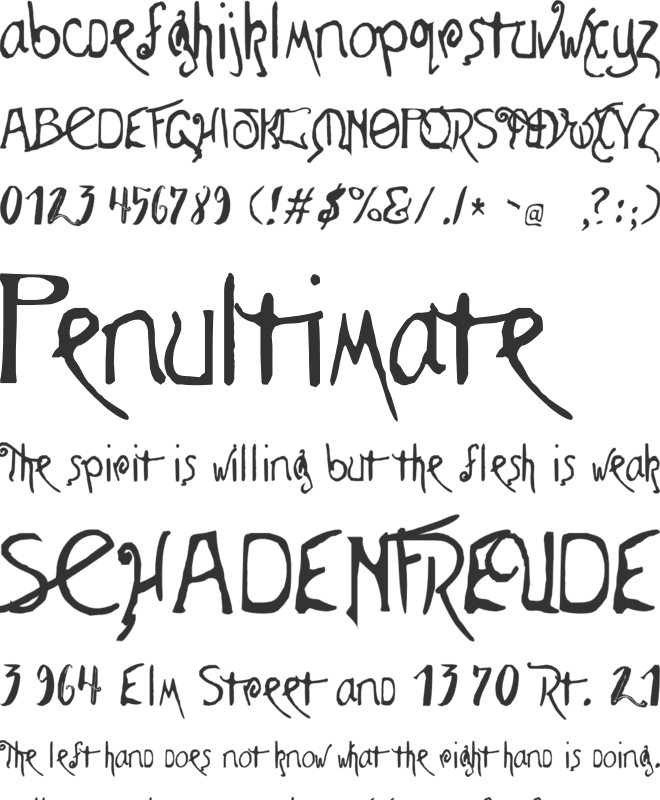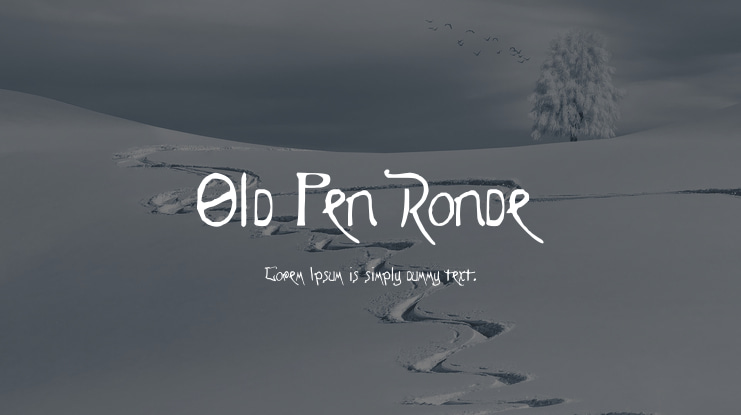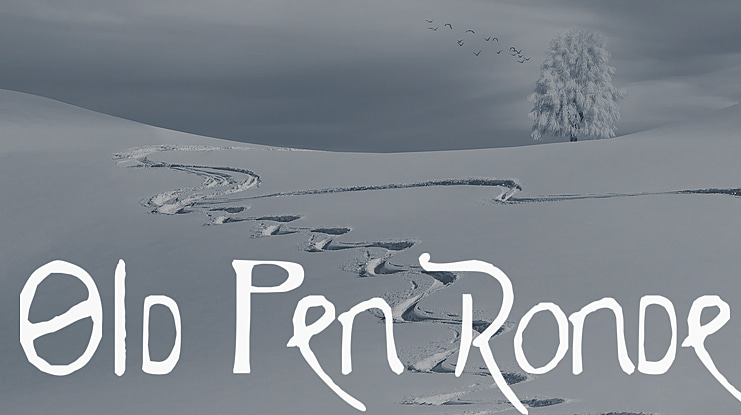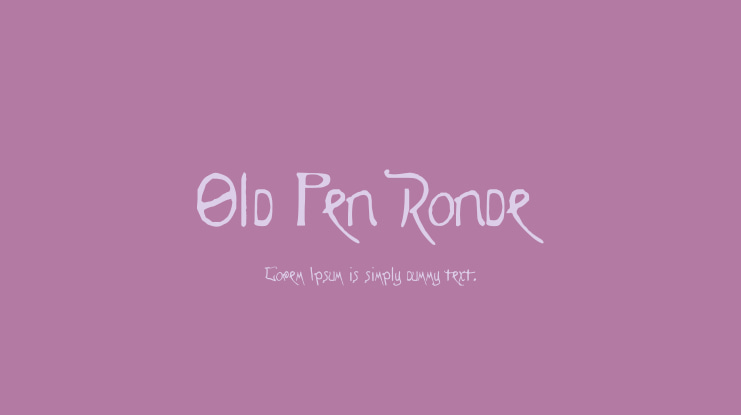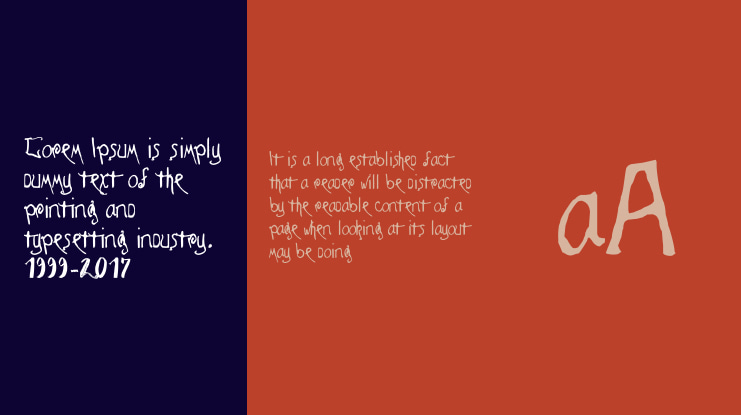
Old Pen Ronde Font Family
This font was created using glyphs of handwritten titles and captions in old books. It is a very decorative font and is reminiscent of vintage copy. This version has small capitals for the lower case letters.